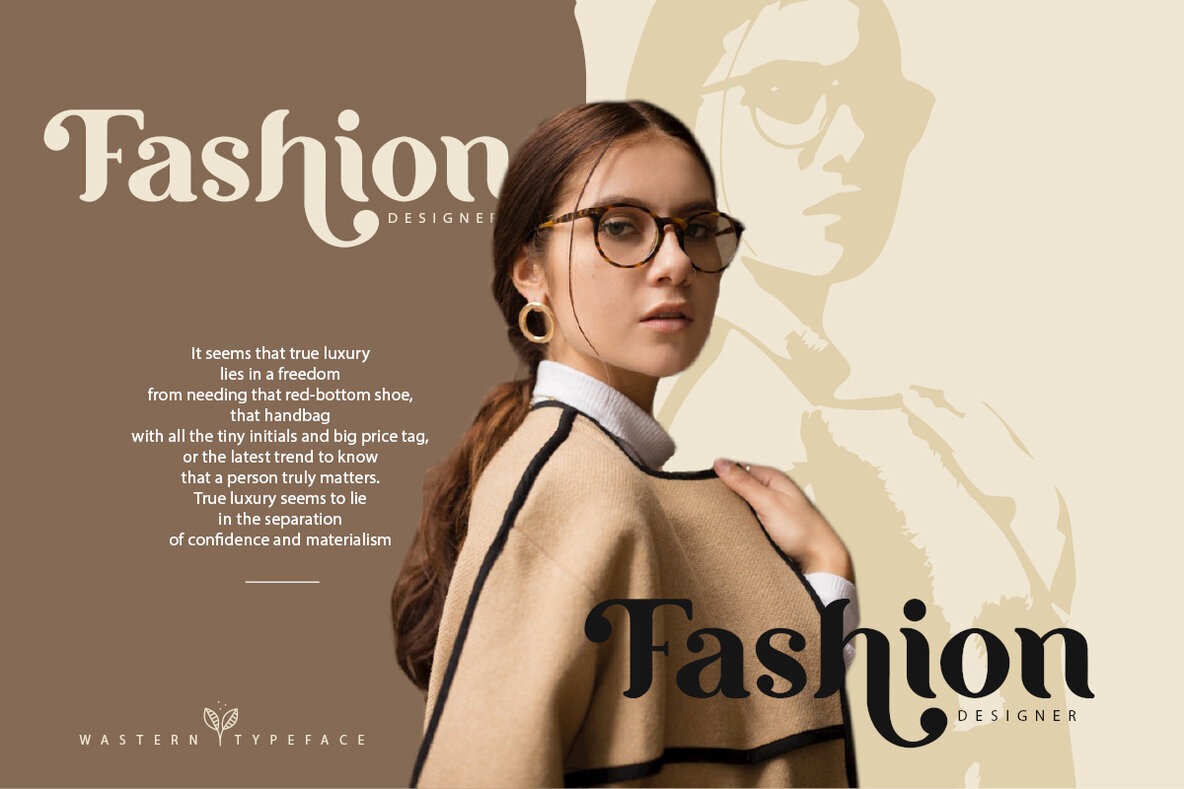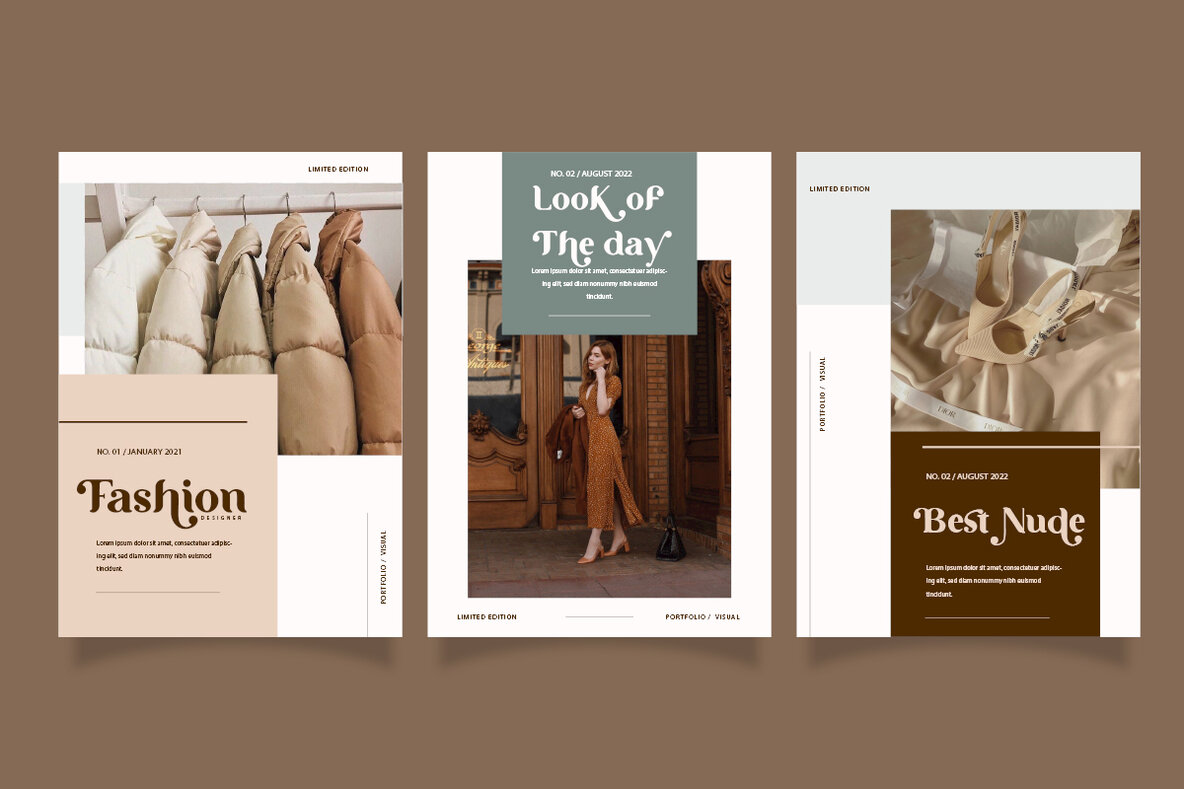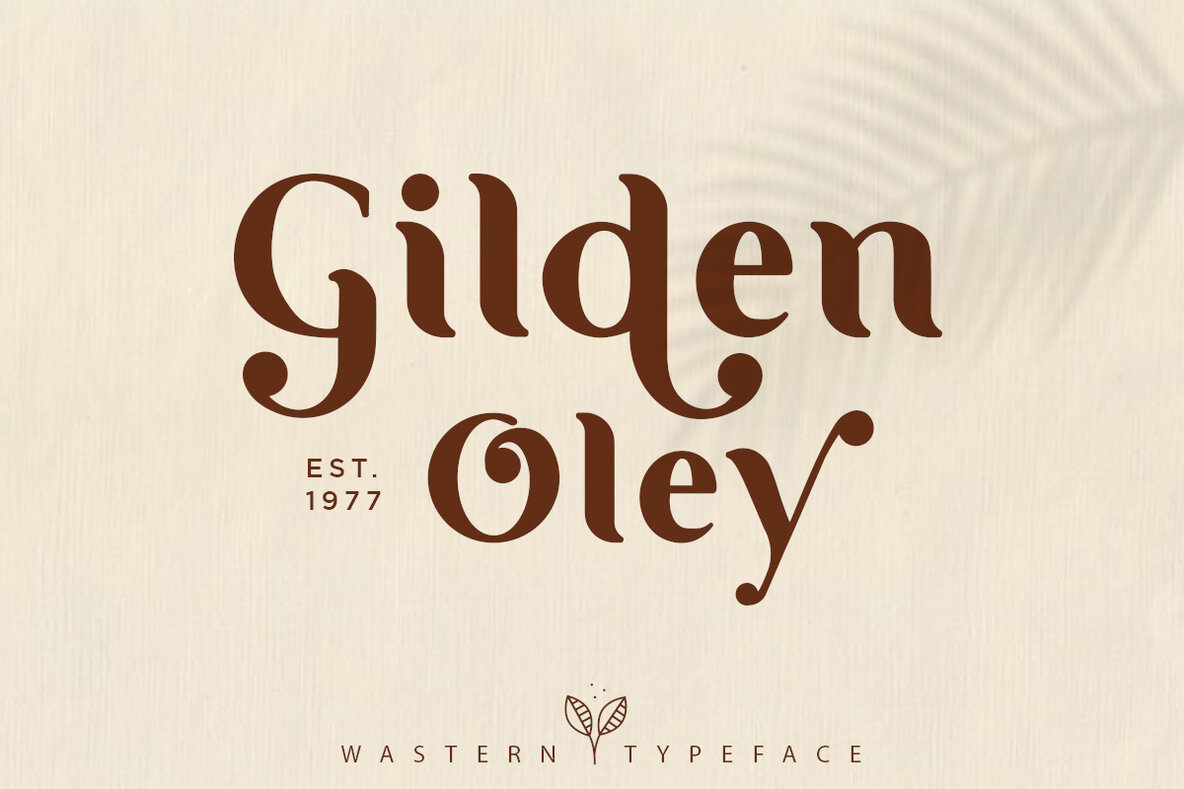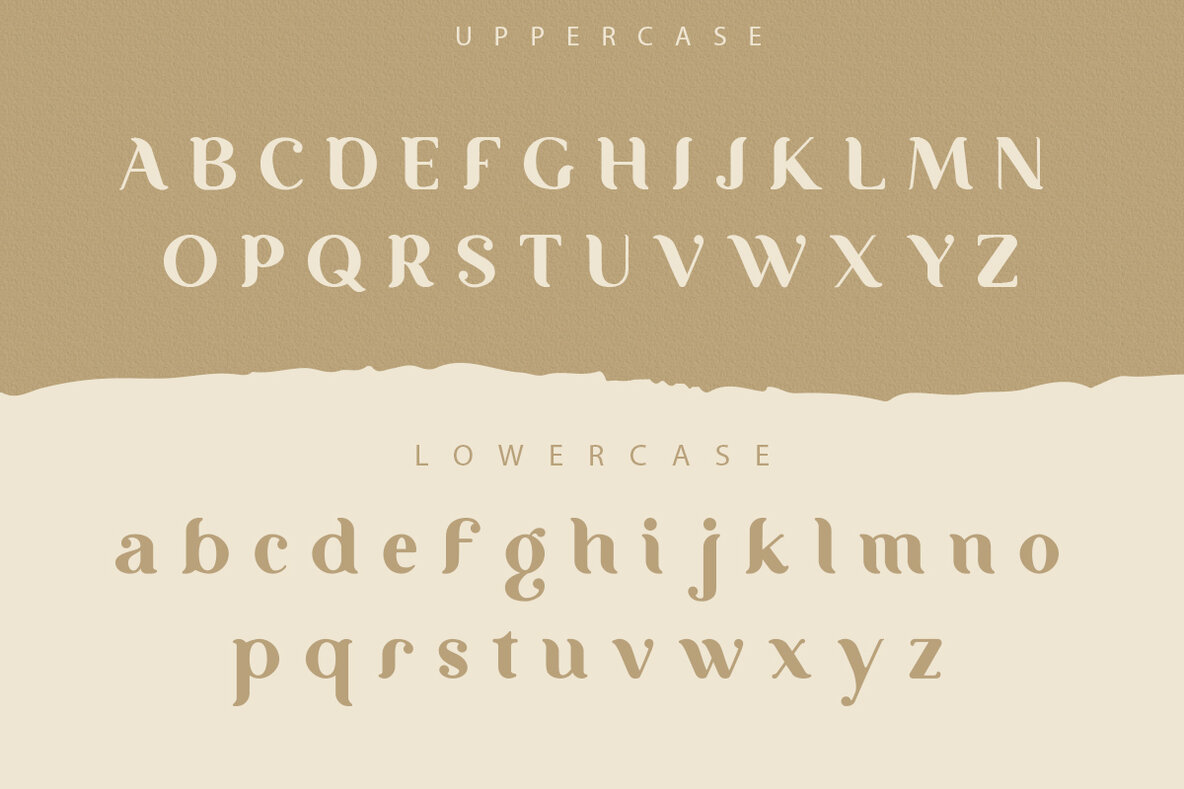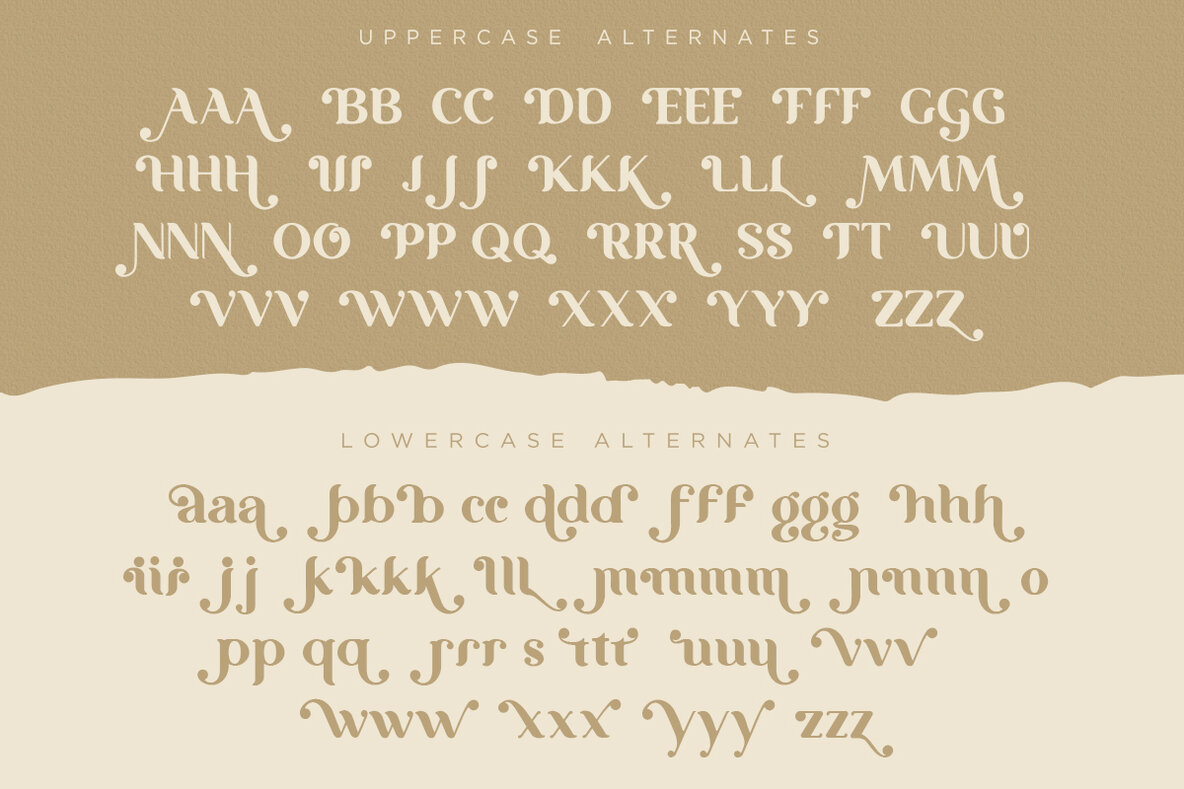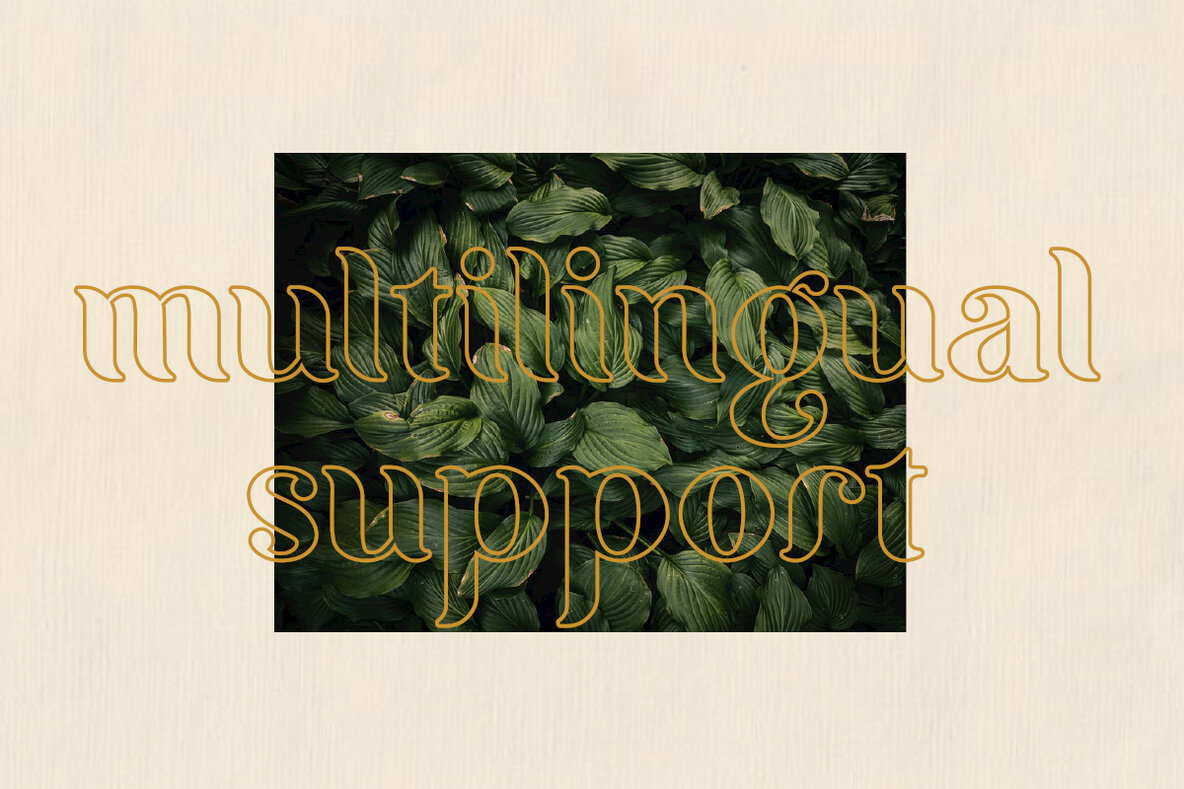
Wastern Font
Wastern presents itself as a striking display typeface, beautifully balancing modern aesthetics with vintage elegance. This font empowers designers with its array of alternative letters and ligatures, perfect for those seeking a nuanced retro feel. You can craft both light and heavy vintage appearances, tailoring designs from magazine spreads to wedding invitations and branding. The combination of modern flair and retro charm ensures Wastern's versatility across diverse projects.Wastern: Bold Display Typeface With Modern and Vintage Curves